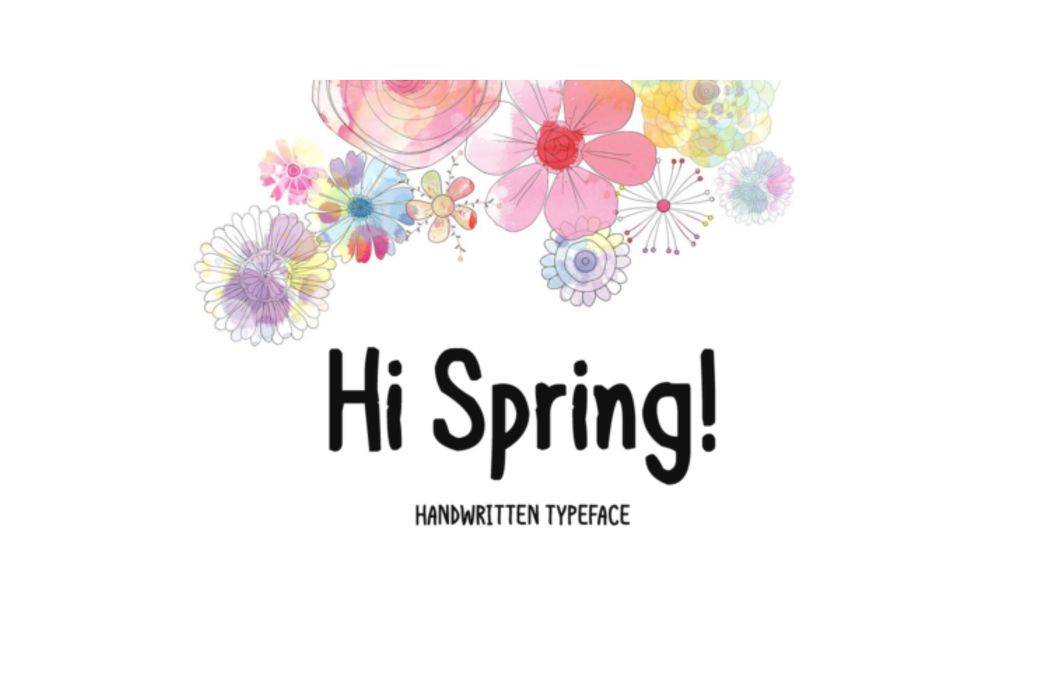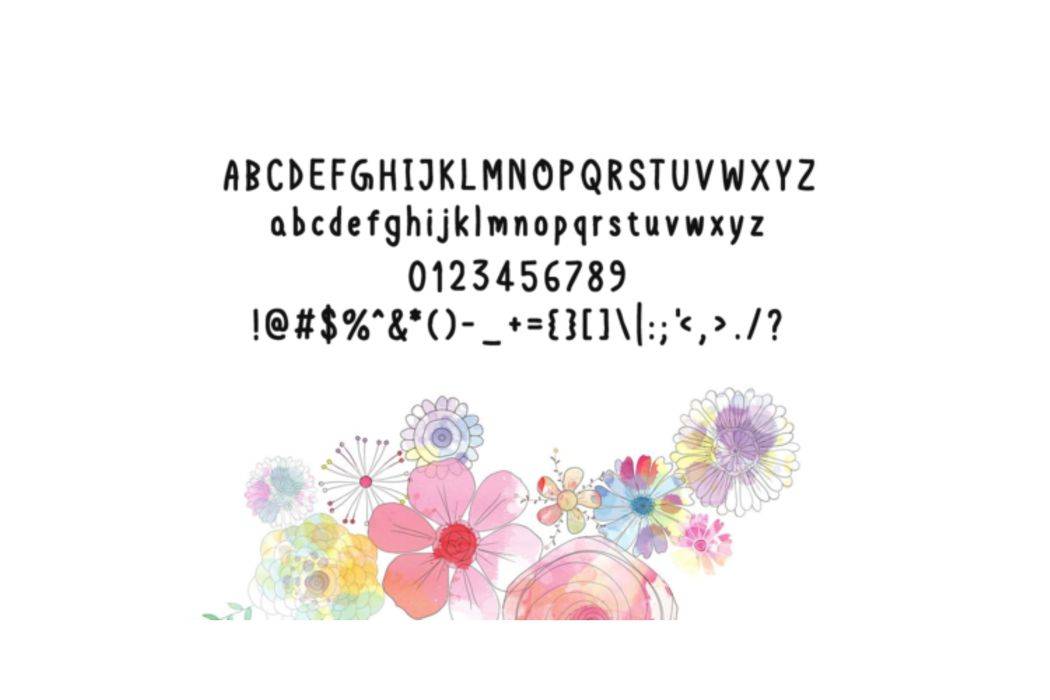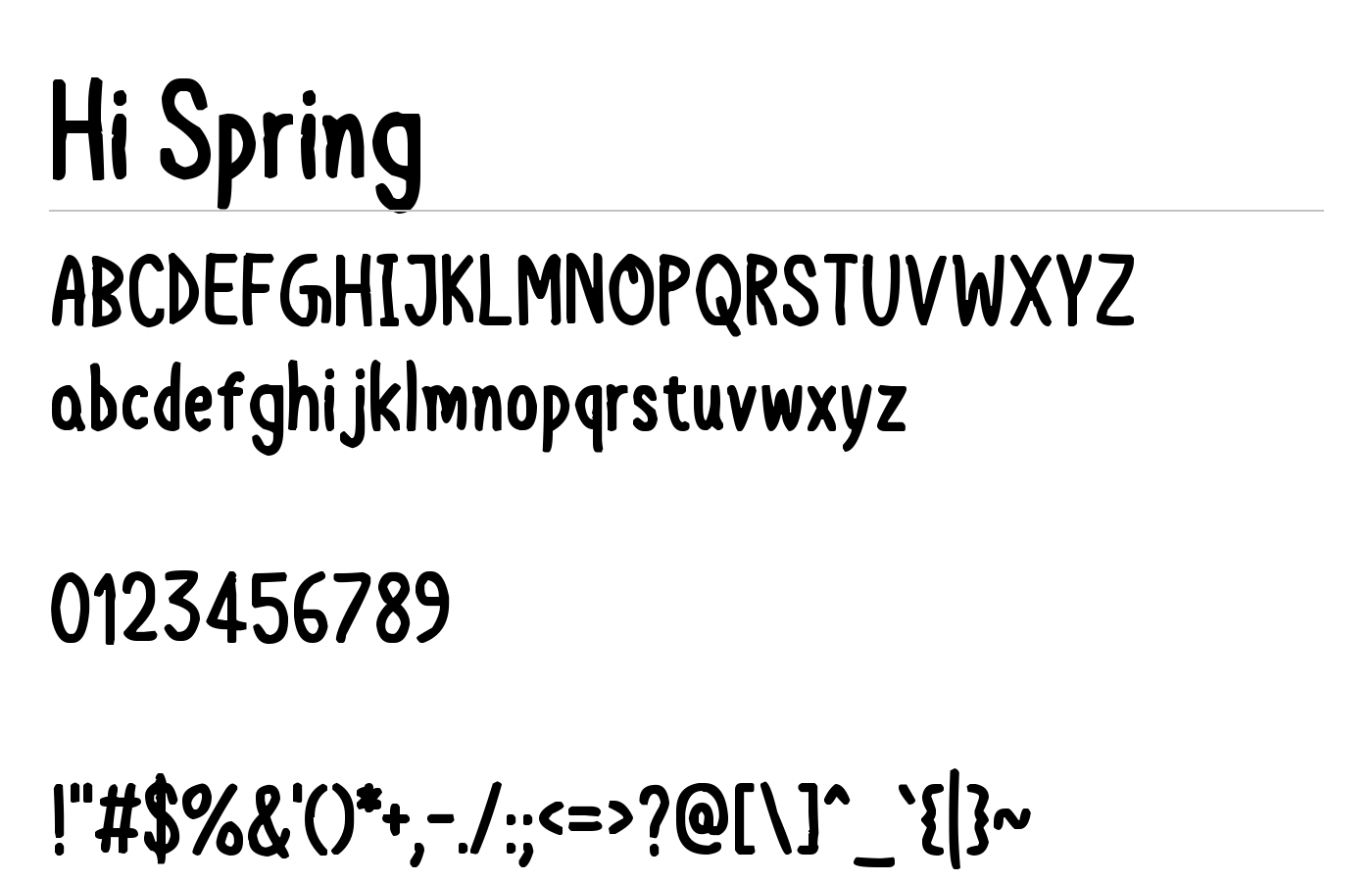
Hi Spring is a playful and casual sans serif font with a hand-drawn feel, featuring irregular, slightly rounded strokes that give it a friendly and approachable personality. Its moderate weight and lively, quirky letterforms make it perfect for informal branding, children's projects, and creative headlines where a warm and inviting tone is desired. This font works well in designs that aim to convey fun, creativity, and a personal touch.
Hi Spring Font
About Hi Spring Font